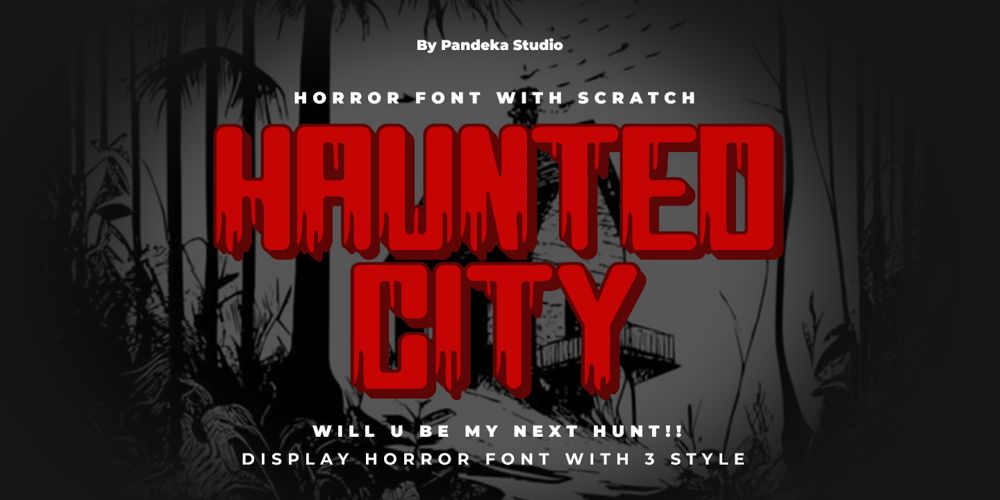
Haunted City Font Family was designed by Sagara Nararya and published by Pandeka Studio. Haunted City contains 3 styles and family package options. Introducing Haunted City – a terrifying horror typeface designed to send chills down your spine!Haunted City is perfect for creating a dark and eerie atmosphere, making it ideal for Halloween celebrations and other fear-filled occasions. Its three styles — Regular, Outline, and Extrude — provide versatility and depth to your designs, adding that sinister touch.Whether you’re designing party invitations, posters, merchandise, or website themes for Halloween, Haunted City guarantees to amplify the suspense and thrill. Dare to enter the Haunted City, and let the fear begin!What’s Included? Haunted City Main Files Regular, Outline and Extrude Style Unique letterforms Works on PC & Mac Simple Installations Accessible in the Adobe Illustrator, Adobe Photoshop, Microsoft Word even work on Canva PUA Encoded Characters Fully accessible without additional design software. Language Support: Danish, English, Estonian, Filipino, Finnish, French, Friulian, Galician, German, Gusii, Indonesian, Irish, Italian, Luxembourgish, Norwegian Bokmål, Norwegian Nynorsk, Nyankole, Oromo, Portuguese, Romansh, Rombo, Spanish, Swedish, Swiss-German, Uzbek (Latin)Feel free to follow, like and share. Thanks so much for checking out my shop!Have a great day!Pandeka Studio